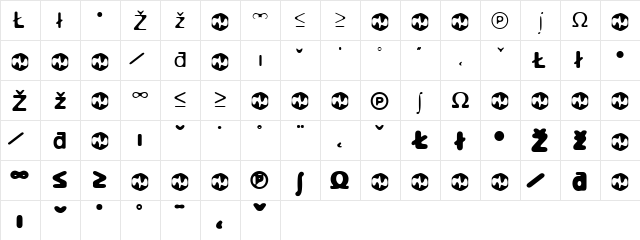
BlurExtra Thin Font Preview
BlurExtra Thin
BlurExtra Thin Font Details
| Style | Thin |
| Foundry | Neville Brody & The Font Bureau ; FontShop International |
Design Context for BlurExtra Typeface
BlurExtra takes a measured approach to typography — its balanced proportions and neutral character make it a reliable workhorse for both digital and print work. Its slender proportions lend an understated elegance to any composition.